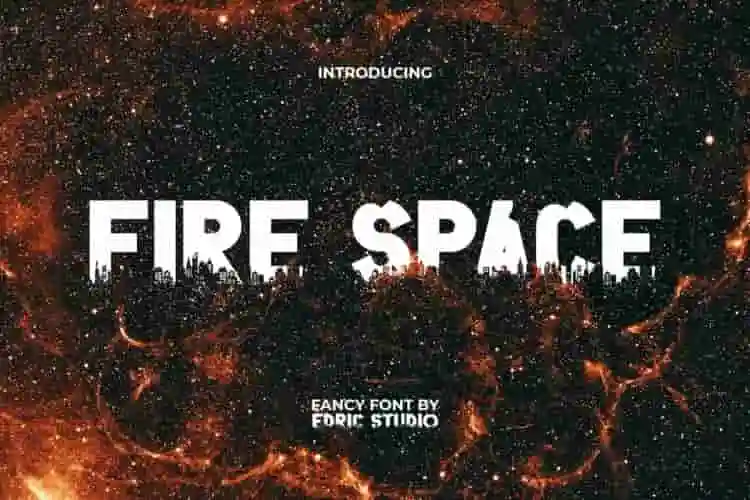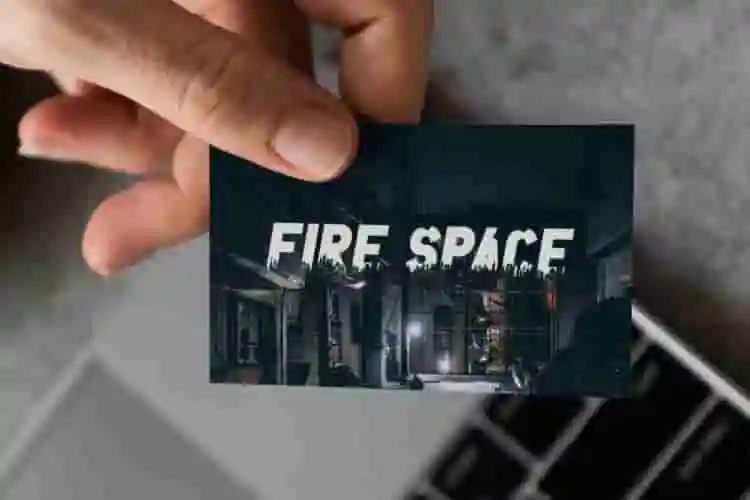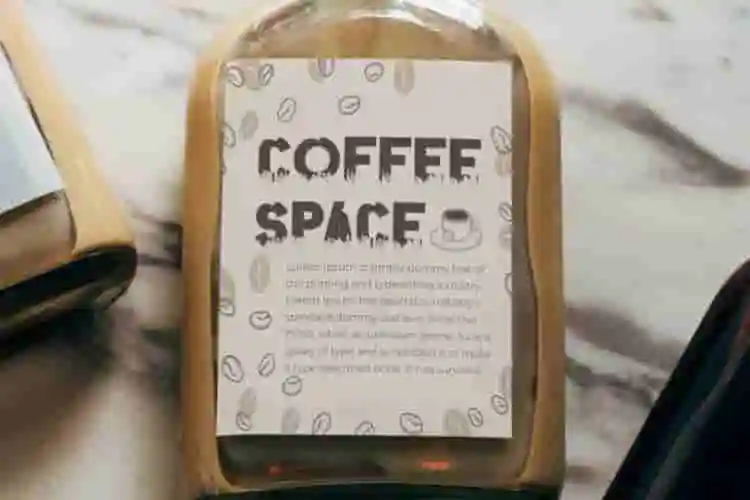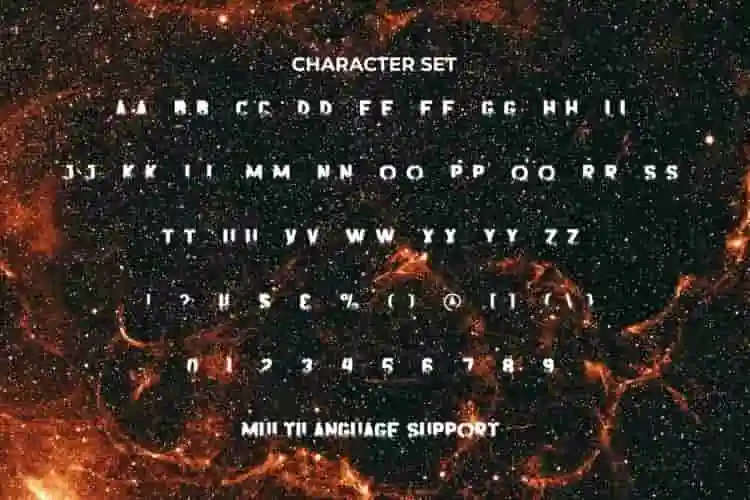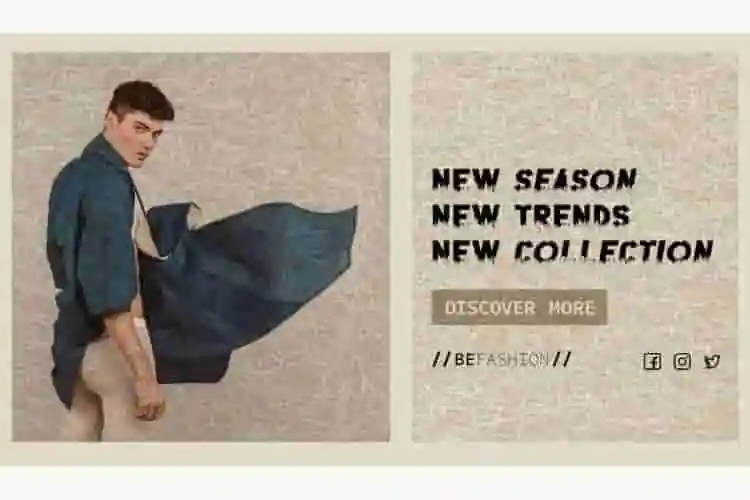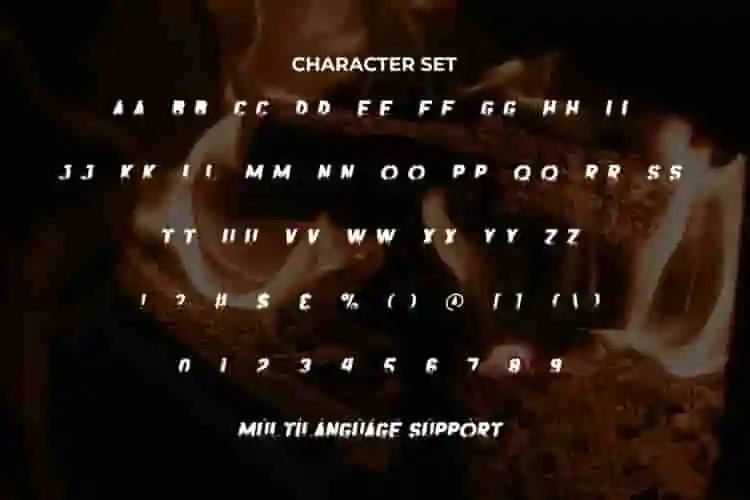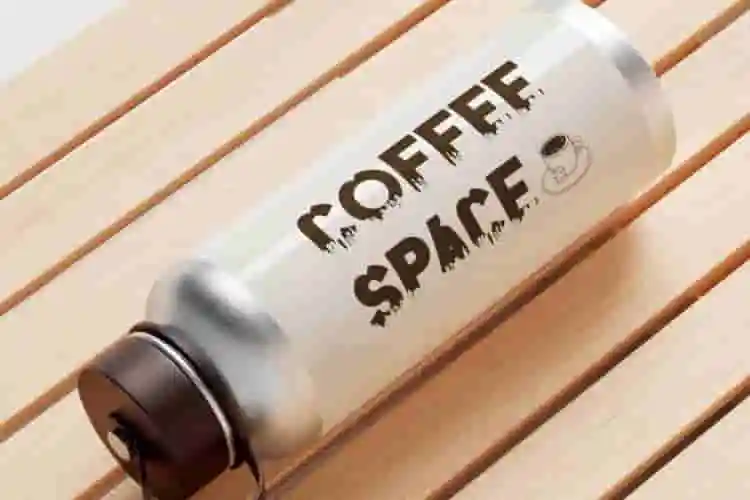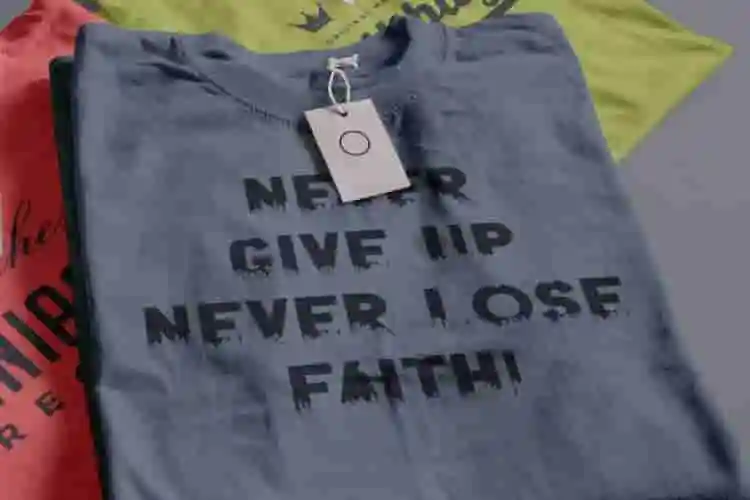
Fire Space Font is a creative decorative fancy font with a city silhouette in burning flame theme. This font is decorated very uniquely with the eroded city skyline giving it a different character and it will be versatile. Whether you’re looking for a font for social media, branding, or a mystery themed project it will turn anything into a true work of art. It’s perfect for billboards, blogs, brochure, cards design, label, logos, movie, packaging, posters, stationery, sticker, t-shirt screen print, titles, website or simply stylish text overlays on any background image.
Introducing Fire Space Sans Serif Font – a sleek, modern, and futuristic typeface crafted to bring bold impact and professional style to your projects. With its clean lines, sharp edges, and balanced proportions, this sans serif font is designed for creators who want clarity, sophistication, and a touch of innovation in their work.
Fire Space Sans Serif Font consisting of regular and italic is carefully crafted to get the extraordinary typography art. You can create a lot of things with this display font as the control is in your hands which allows to customize it. It includes a complete set of ALL CAPITAL LETTERS for Upper and Lower Case, Numbers, Punctuation and Symbols. The font would be perfect for accessories or merchandise, clothing brand, coffee shop, event organizer, fashion, graphic design, printing, publishing, sportswear, or anything else.